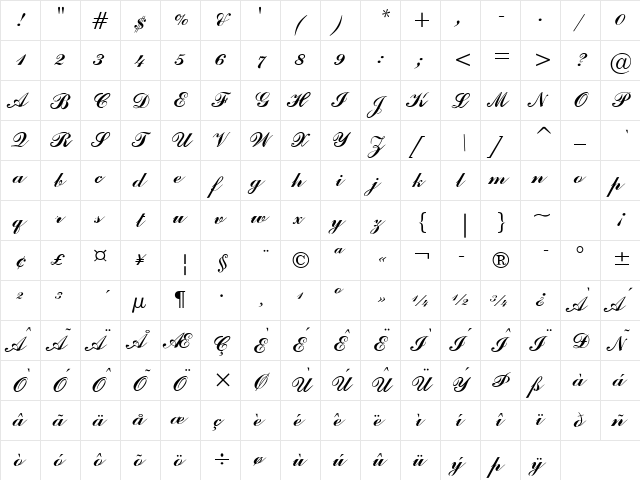
Script 92 Normal
Design Context for Script 92 Typeface
Script 92 flows with the natural rhythm of handwritten lettering, making it ideal for designs that call for warmth and personal expression.
Font Pairing: Combine Script 92 with a simple geometric sans for maximum contrast — the tension between flowing curves and clean structure is a classic typographic pairing.
Pro Tip: Pair Script 92 with a clean sans-serif for supporting text. The contrast between fluid script and geometric structure creates an elegant typographic hierarchy.